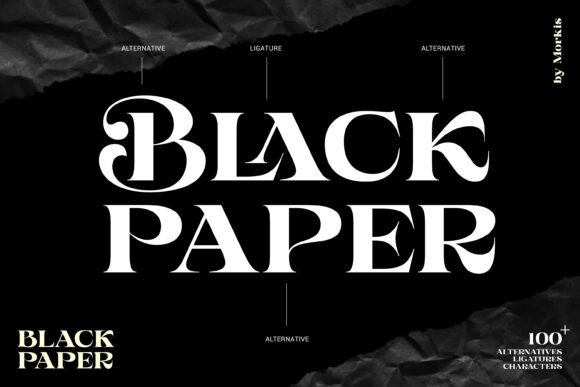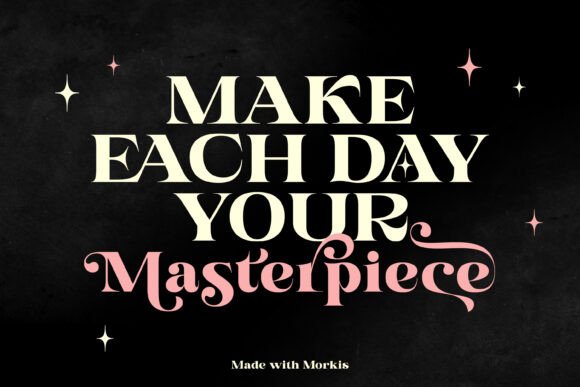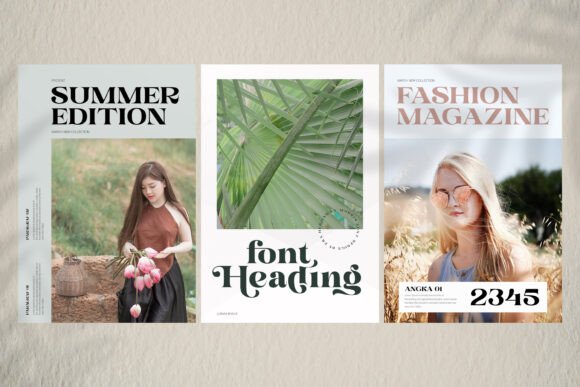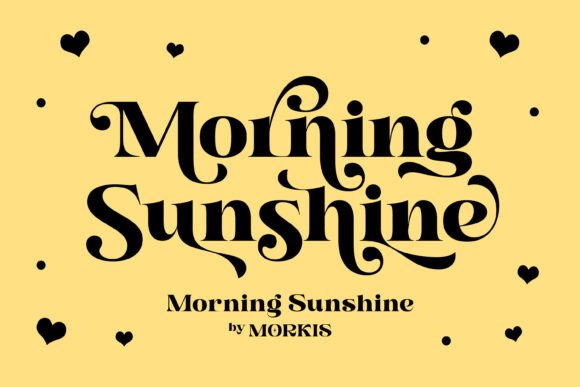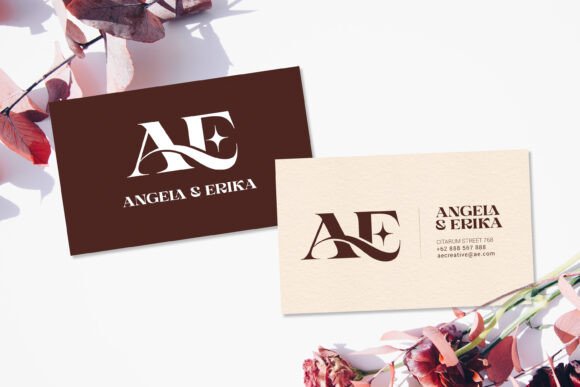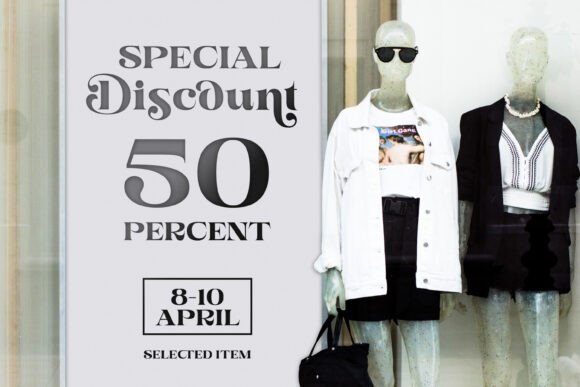
Introduction to Morkis Font
Have you ever stared at a blank page, waiting for inspiration to strike, only to be interrupted by the perfect font that sets your design ablaze? For designers, this moment is like a breath of fresh air, and it’s what makes the search for the perfect font so exhilarating. In this article, we’ll dive into the world of Morkis Font, a high-quality serif font that’s designed to elevate your creative projects to new heights.
Whether you’re working on a logo design, branding, or a simple poster, Morkis Font is the perfect resource to add that extra touch of elegance and sophistication. With its unique alternatives and ligatures characters, this font is sure to stand out from the crowd and make your design truly unforgettable.
Key Features of Morkis Font
- High-quality design resource ideal for creative projects, offering a unique aesthetic.
- Includes a range of characters and glyphs, making it suitable for a variety of creative applications.
- Designed with a focus on high-resolution output, ensuring crisp and clear typography in your designs.
- Perfect for designers looking for a distinctive and creative design resource to elevate their work.
Honest Review: Morkis Font
I recently had the chance to try out the Morkis Font, and I must say it’s been a great addition to my design resource library. The first thing that caught my attention was its high quality and unique design. It’s perfect for any creative project that requires a modern and futuristic feel.
- ✨ It comes in a variety of styles and weights, giving users a lot of flexibility when it comes to customizing their design.
- ⚠️ The font is not suitable for text-heavy projects, as it can be quite difficult to read in smaller sizes.
- ⚠️ Some users may find the font’s futuristic design to be a bit too bold or overwhelming.
Overall, I’m really impressed with the Morkis Font. It’s a great option for designers who are looking for a unique and high-quality font to add some creativity to their projects. While it may have a few limitations, I think it’s definitely worth checking out.
Morkis Font is a high-quality design resource ideal for creative projects. It offers a unique and versatile style that can elevate your designs to the next level.
Common Use Cases for Morkis Font
Morkis Font is perfect for a variety of creative projects, including logos, branding materials, and social media graphics. Its unique style and versatility make it an excellent choice for designers looking to add a touch of sophistication to their designs.